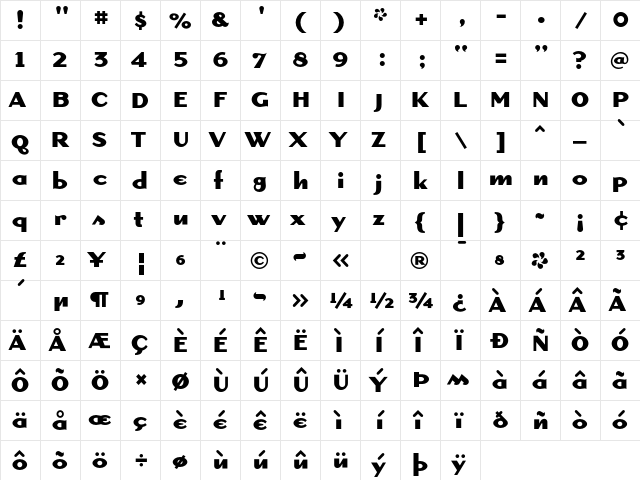
Dogma Bold Font Preview
Dogma Bold
Dogma Bold Font Details
Design Context for Dogma Typeface
Dogma takes a measured approach to typography — its balanced proportions and neutral character make it a reliable workhorse for both digital and print work. Its bold stroke weight gives it real presence on the page.